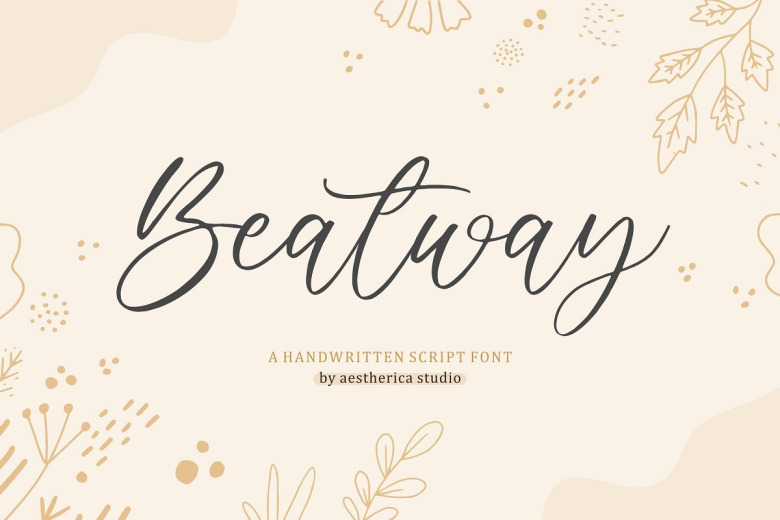
Beatway Font
Beatway is the Calligraphy Script style that has Elegant style and dramatic movement Good Font for your next Creative project. Beatway is great for branding projects, logos, wedding designs, social media posts, advertisements, product packaging, product designs, label, photography, watermark, invitation, stationery, and any project, are stunning in your next project.
Beatway Calligraphy Font